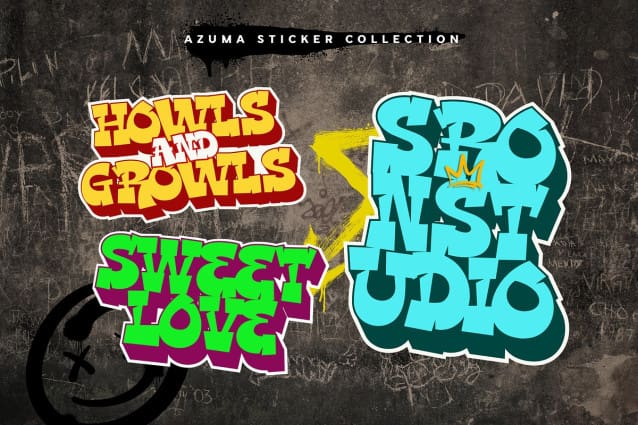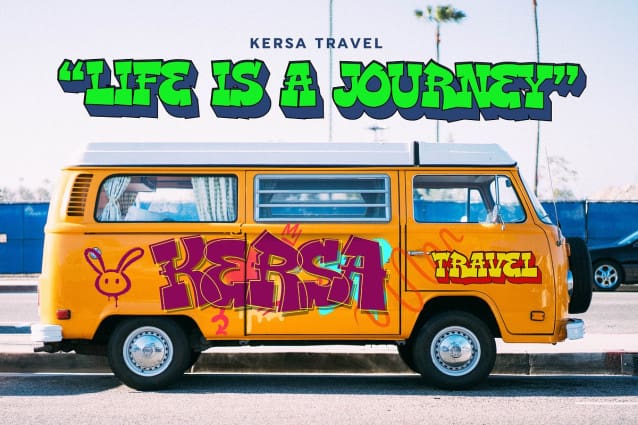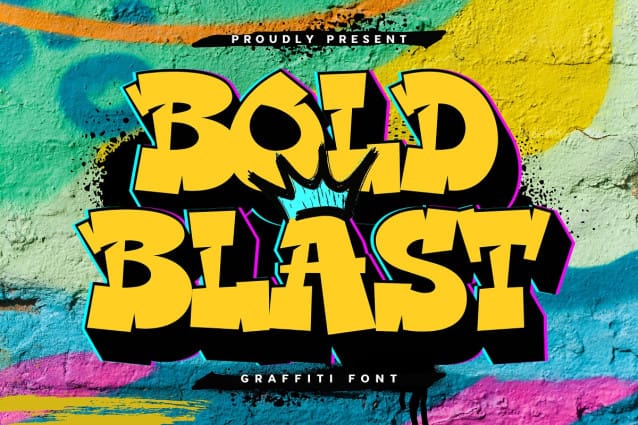
Bold Blast Font
Bold Blast Font is an urban graffiti font with a bold and edgy style. Its striking, dynamic characters bring street art to life, making it perfect for posters, apparel, and urban-themed designs. Bold Blast adds a raw, expressive touch to any project.